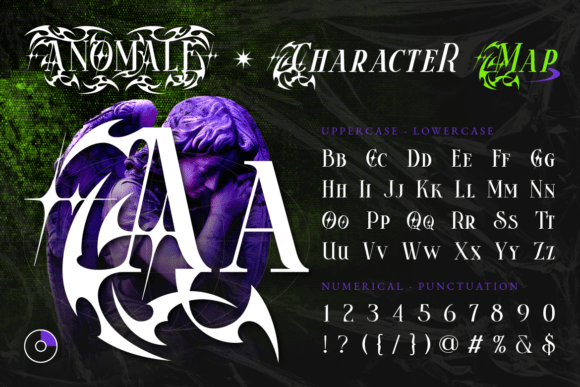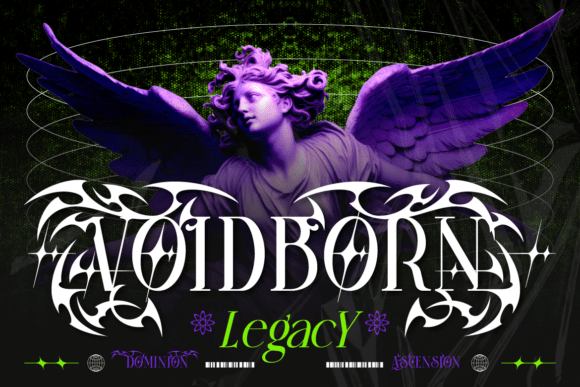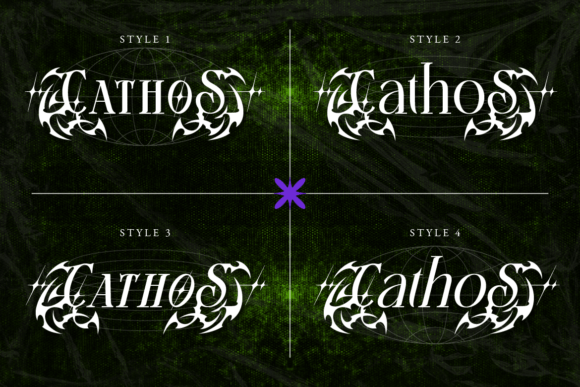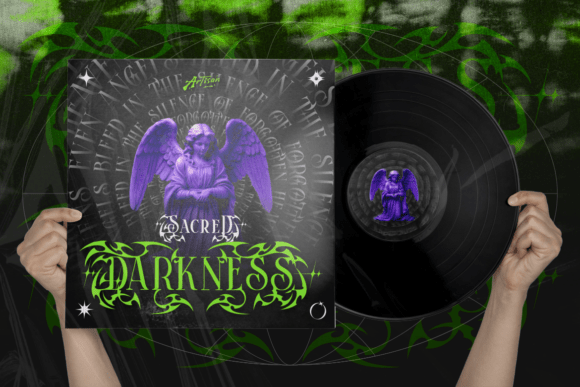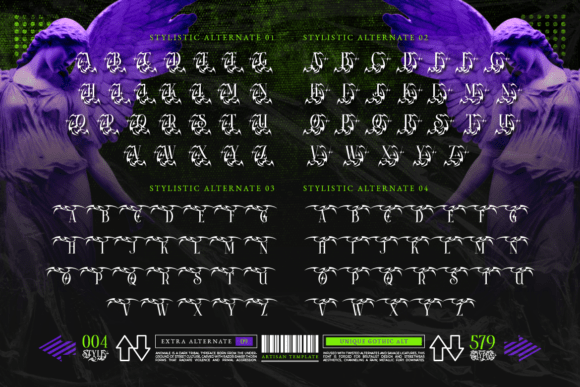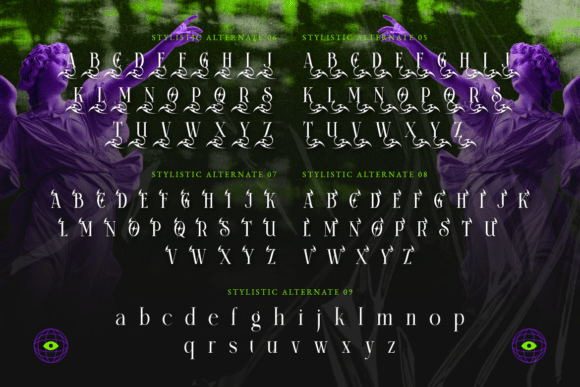
The Dark Allure of Typography: Unveiling the Anomale Font
Have you ever been brainstorming a new project and suddenly, a spark of inspiration strikes, conjuring up an image that refuses to be ignored? For designers, this moment of creative clarity is often the starting point of something truly remarkable. For us, it was the discovery of the Anomale Font – a dark tribal typeface that embodies the raw energy of ancient symbols and gothic rituals.
This enigmatic font is designed to make a statement, with sharp curves and aggressive ornamental details that transport your design to a world of mystery and power. With its multiple stylistic alternates, the Anomale Font offers endless possibilities for creating unique lettering styles that demand attention. Whether you’re crafting a bold tribal logo or a dark gothic typography piece, this font is the perfect tool to elevate your design and leave a lasting impression.
- Unique Characteristics: Anomale features an unusual, asymmetrical design with bold lines and geometric shapes, making it perfect for adding a touch of elegance and sophistication to any design project.
- Language Support: Anomale supports multiple languages, including Latin, Cyrillic, and Greek alphabets, making it a versatile choice for global design applications.
Designer Review: Anomale Font
Overall, I found Anomale Font to be a unique and interesting addition to my design arsenal. ✨ Its bold, futuristic aesthetic makes it perfect for sci-fi themed projects, futuristic UI designs, and even some modern branding concepts.
One of the things that works well for Anomale Font is its flexibility. ✨ It’s available in multiple weights and styles, making it easy to find the perfect version to suit your design needs. The font also has a high level of legibility, making it suitable for body text as well as headings.
- ⚠️ The font may be too bold for some projects, particularly those that require a more subtle aesthetic.
- ⚠️ The font’s unique style may not be suitable for all audiences, particularly those who prefer more traditional or classic font designs.
- ⚠️ Some users may experience issues with font rendering, particularly at smaller font sizes.
Overall, I’d say that Anomale Font is a solid addition to any designer’s toolkit. While it may have some limitations, its unique aesthetic and flexibility make it a great choice for the right projects. With some careful consideration of its strengths and weaknesses, Anomale Font can be a powerful tool for designers looking to create bold, futuristic designs.
For the most effective use of Anomale Font, use it in bold or italic styles to create visual interest.
Anomale Font is ideal for use in branding materials, such as logos and business cards.
It can also be used in social media graphics and presentations to add a touch of elegance and sophistication.